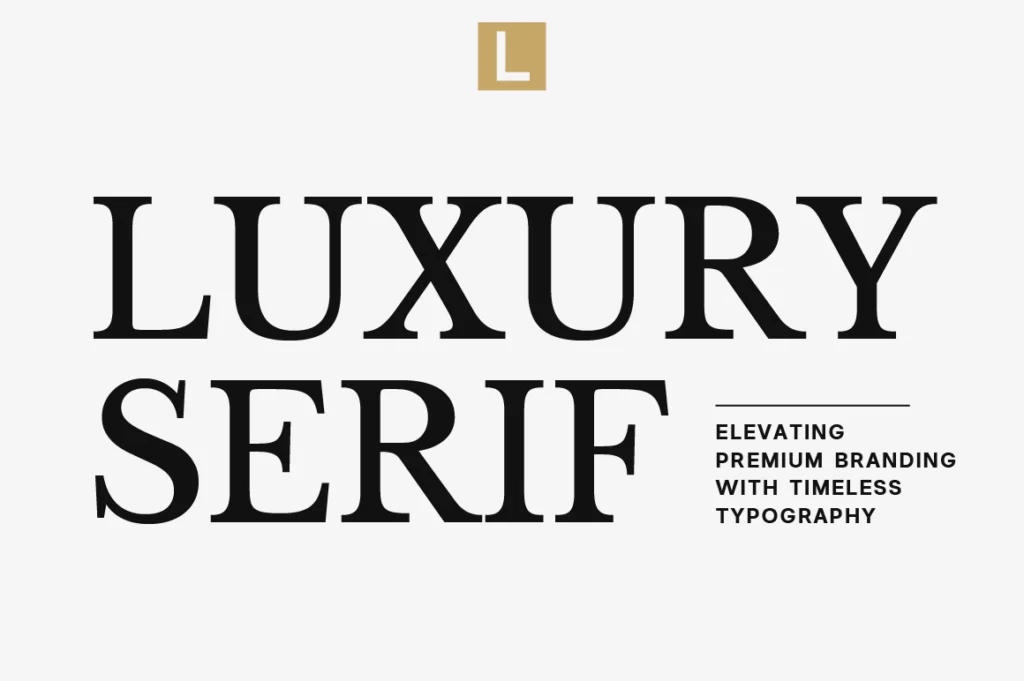
Luxury Serif Fonts for Elegant Branding: A Complete Guide for Premium Visual Identity
Elevating Premium Branding Through Timeless Typography
Luxury branding is about more than beautiful visuals—it is about creating a lasting perception. Every design decision influences how customers experience a brand, and typography is one of the most powerful elements in shaping that perception.
Among all type styles, serif fonts continue to be the preferred choice for premium brands. Their refined details, balanced proportions, and timeless character naturally communicate elegance, trust, and sophistication.
Modern luxury branding has evolved beyond traditional serif designs. Today’s premium typefaces combine classic craftsmanship with contemporary simplicity, making them suitable for everything from fashion labels and beauty products to editorial publications and boutique hospitality brands.
The strength of a luxury serif font lies in its subtle details. Carefully designed stroke contrast, elegant curves, refined terminals, and harmonious spacing work together to create a typeface that feels confident without demanding attention. This quiet sophistication is often what separates premium brands from ordinary ones.
Typography also establishes emotional connections. A fashion house may use a high-contrast serif to communicate exclusivity, while a skincare company may prefer softer serif forms that evoke calmness and trust. The right typeface becomes an extension of the brand’s personality.
Versatility is another essential quality. Premium serif fonts should perform beautifully across multiple applications, including logos, packaging, websites, social media, printed materials, magazines, and advertising campaigns. Consistency across every touchpoint helps strengthen brand recognition and customer trust.
Spacing plays an equally important role. Luxury typography often embraces generous white space and balanced letter spacing, allowing every character to breathe naturally. Combined with minimalist layouts, this approach creates a clean and sophisticated visual experience that never feels overcrowded.
Many successful brands pair serif fonts with modern sans-serif typefaces. While the serif establishes elegance and personality, the sans-serif provides clarity for body text, interfaces, and supporting information. This combination creates a timeless visual system suitable for both print and digital environments.
Choosing the right serif font should always begin with understanding your brand identity. Consider questions such as:
• Is your brand classic or contemporary?
• Does it target luxury consumers or creative professionals?
• Will the font primarily appear in logos, editorial layouts, or product packaging?
• Does the typography need to feel bold, feminine, artistic, or understated?
Answering these questions will help you select a typeface that strengthens your visual identity rather than simply decorating it.
Whether you’re designing a luxury logo, premium packaging, editorial magazine, website, or complete brand identity, Lettertype Studio provides typography that helps your work stand out with elegance and confidence.
Featured Serif Fonts from Lettertype Studio
Lucentia-Hero-Cover Lucentia-Mobile-Display-App Lucentia-Bold-Serif-Torn-Paper
Lucentia is an elegant editorial serif designed for luxury branding, magazines, and sophisticated visual identities.
Vescura-Hero-Cover Vescura-Business-Card Vescura-Tote-Bag
Vescura combines timeless serif construction with a contemporary aesthetic, making it ideal for fashion labels, premium logos, and upscale branding.
Becaure-Hero-Cover Becaure-Y2K-Silver-Poster Becaure-Neura-Corporate-Logo
Becaure offers graceful proportions and refined details, making it an excellent choice for beauty, cosmetics, wellness, and lifestyle businesses.
elfariany-signature-font-duo-cover-preview elfariany-fashion-branding-font-preview elfariany-perfume-packaging-font-preview
Elfariany Duo pairs an elegant serif with a complementary signature script, providing exceptional flexibility for wedding brands, boutique packaging, premium invitations, and luxury marketing materials.
Whether you’re building a fashion label, launching a skincare brand, designing editorial publications, or creating premium packaging, investing in the right typeface can elevate every aspect of your visual identity.